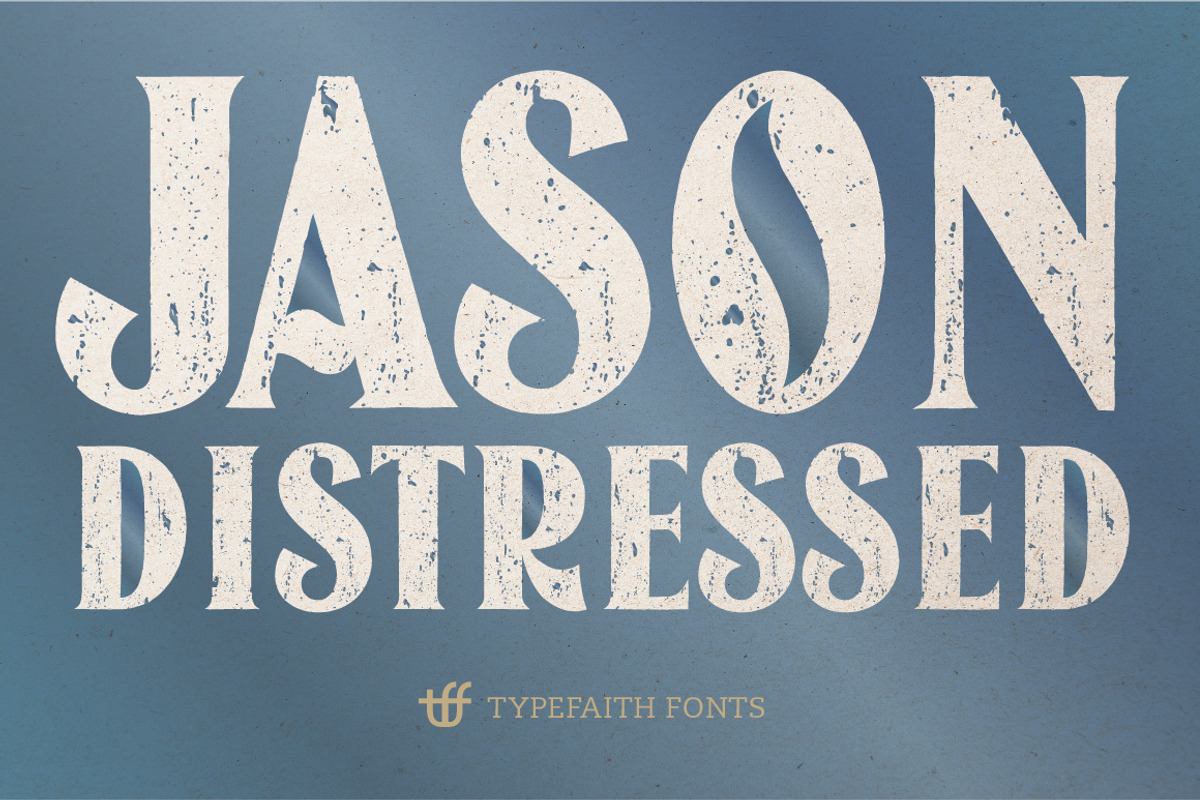
Jason Caps Distressed Font Free Download is a bold and gritty display typeface designed to bring a rugged, worn-out look to your designs. With its distressed edges and weathered appearance, this font is perfect for projects that require a raw, industrial, or vintage feel. It’s ideal for posters, logos, album covers, and anything related to grunge, rock, or edgy branding.
The distressed texture adds character and personality, making it great for creating high-impact designs that need to stand out and convey strength or rebellion.